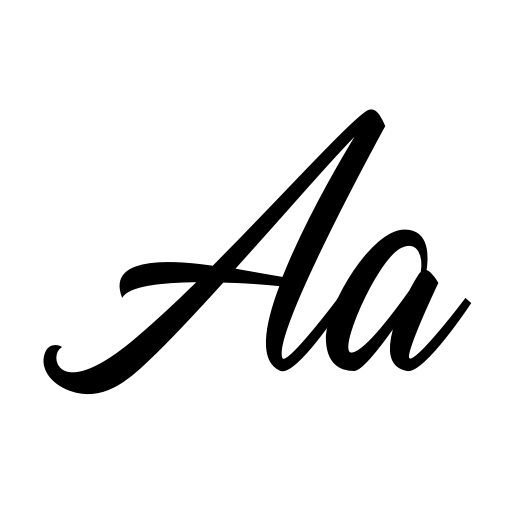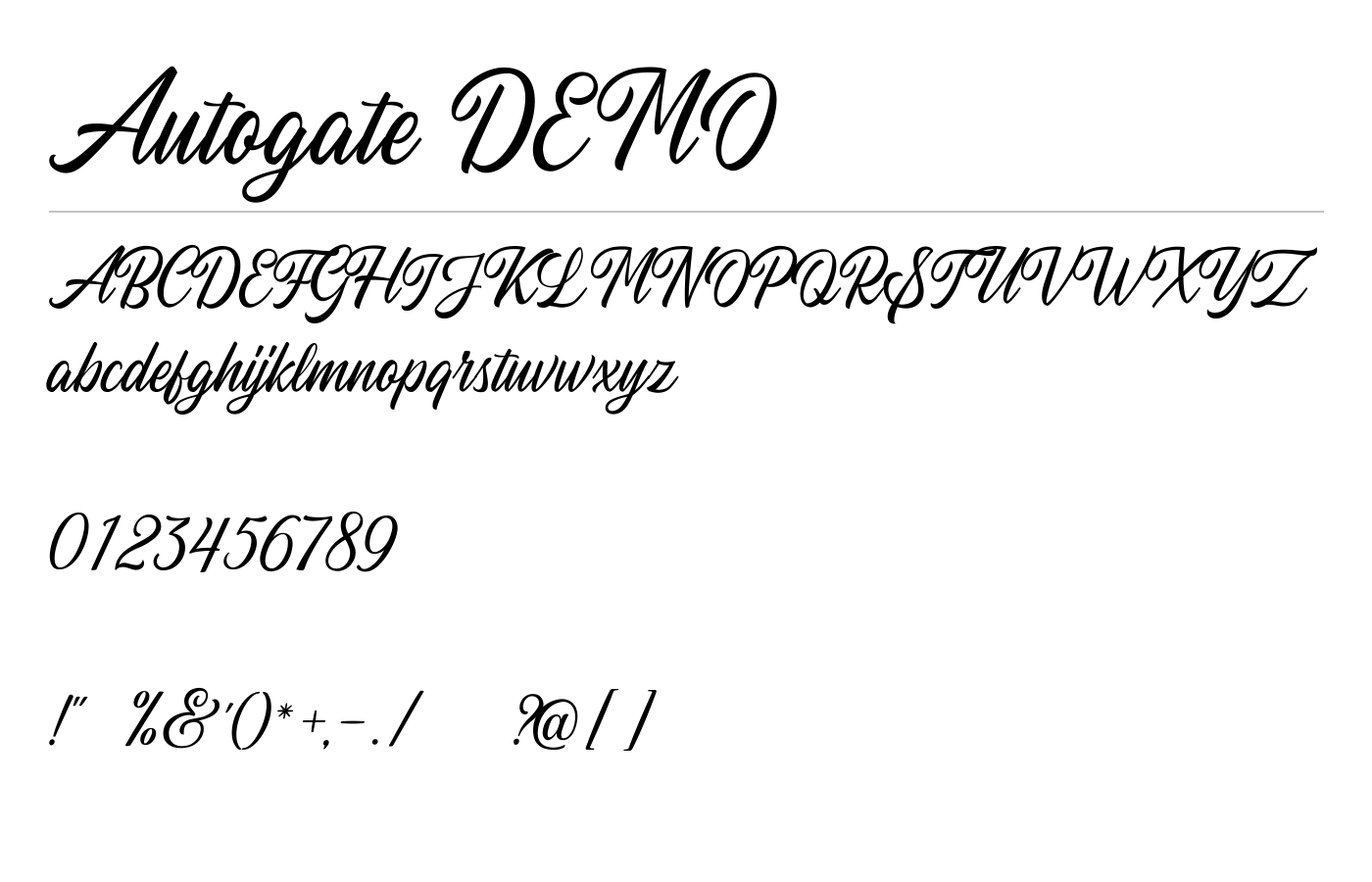
Autogate DEMO is an elegant, flowing script font with a graceful, handwritten feel. It features smooth, slightly varied stroke widths and a naturally slanted, cursive style that works perfectly for branding, invitations, and decorative headlines where a touch of sophistication and personality is desired. This font shines in projects that want to convey warmth and charm with a modern, stylish flair.
Autogate DEMO Font
About Autogate DEMO Font
| Font family | Autogate DEMO Font |